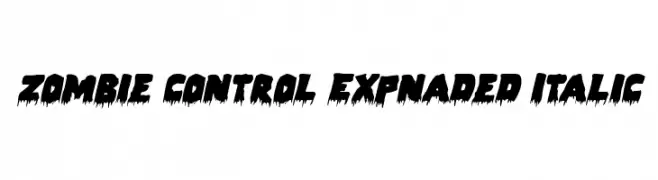
A distressed, grungy font with a hand-drawn, eerie appearance.
A chaotic, edgy font with jagged, irregular strokes and dynamic flow.
A bold, distressed font with a grunge-like, hand-drawn appearance.
A bold, dripping font perfect for horror-themed designs.
A bold, dripping font perfect for horror-themed projects.
A bold, dripping font with a horror-themed aesthetic, perfect for Halloween designs.
A bold, dripping horror-themed font with a spooky, three-dimensional effect.
A bold, expanded, and italic font with a dripping, horror-inspired style.
A bold, jagged, and dripping font perfect for horror themes.
A bold, dripping font with a spooky, horror-themed aesthetic.